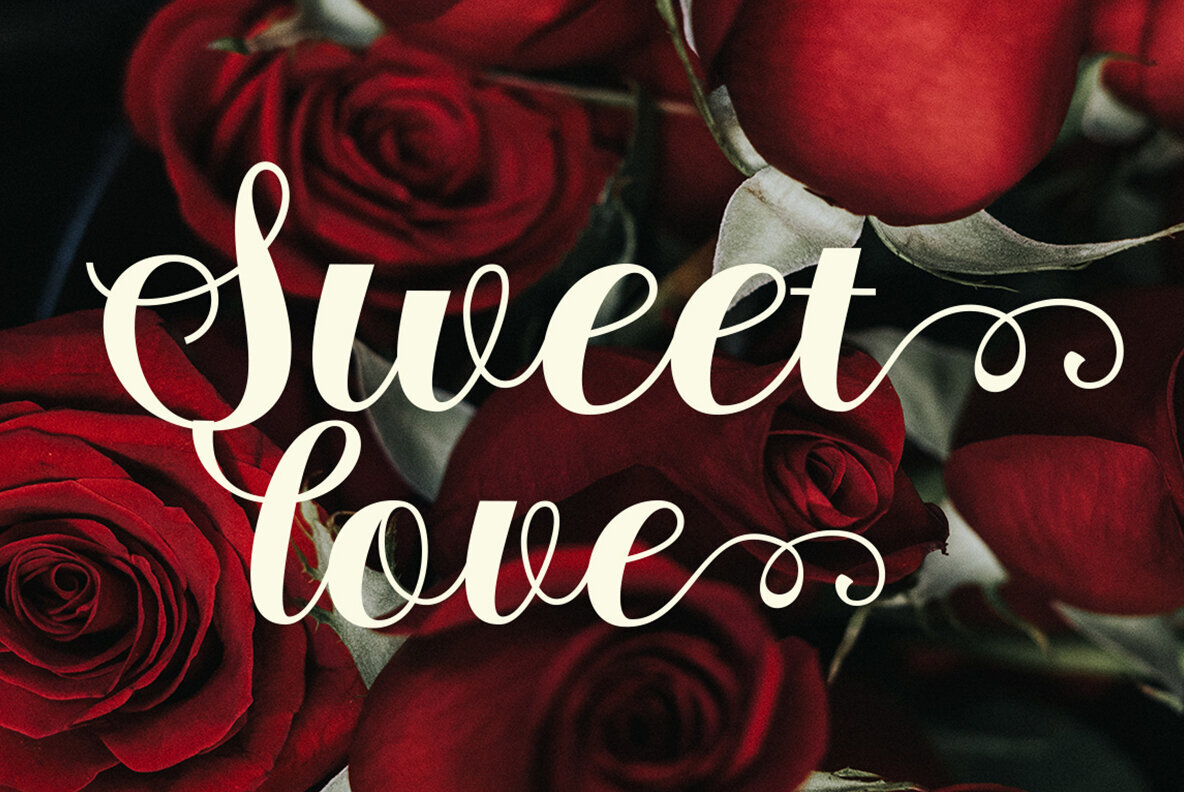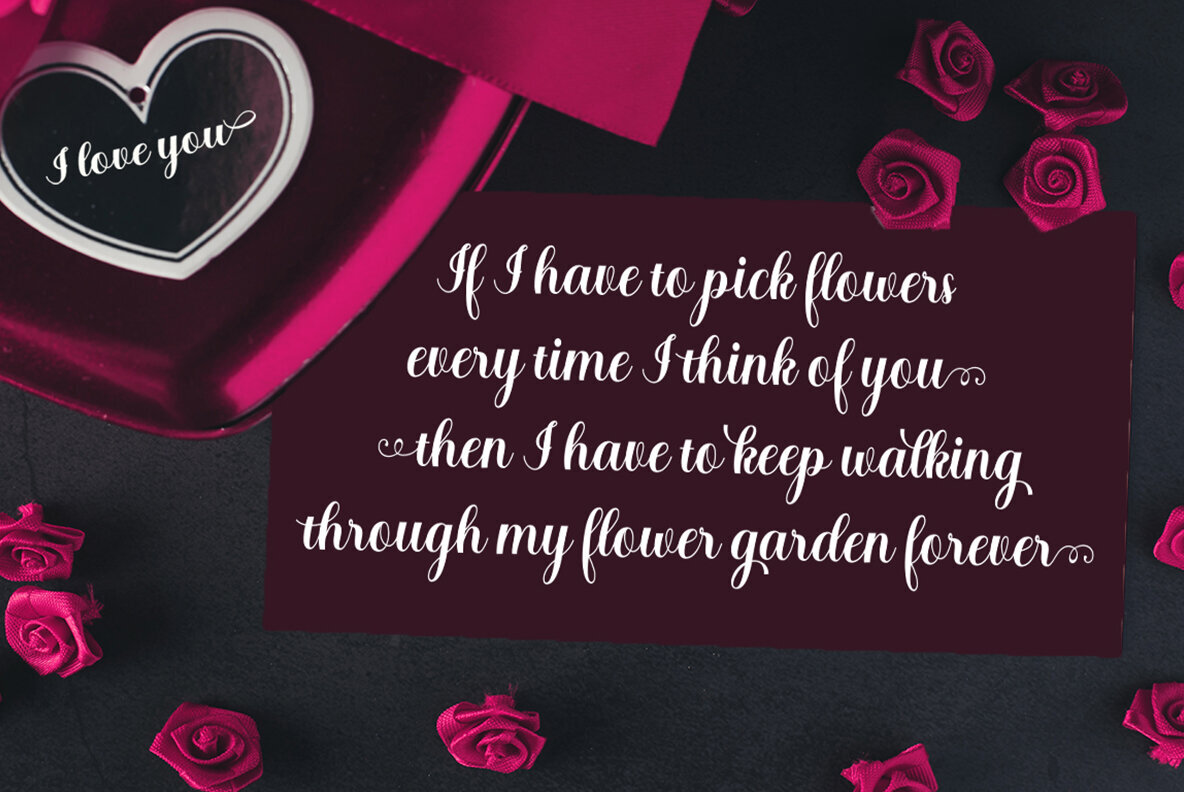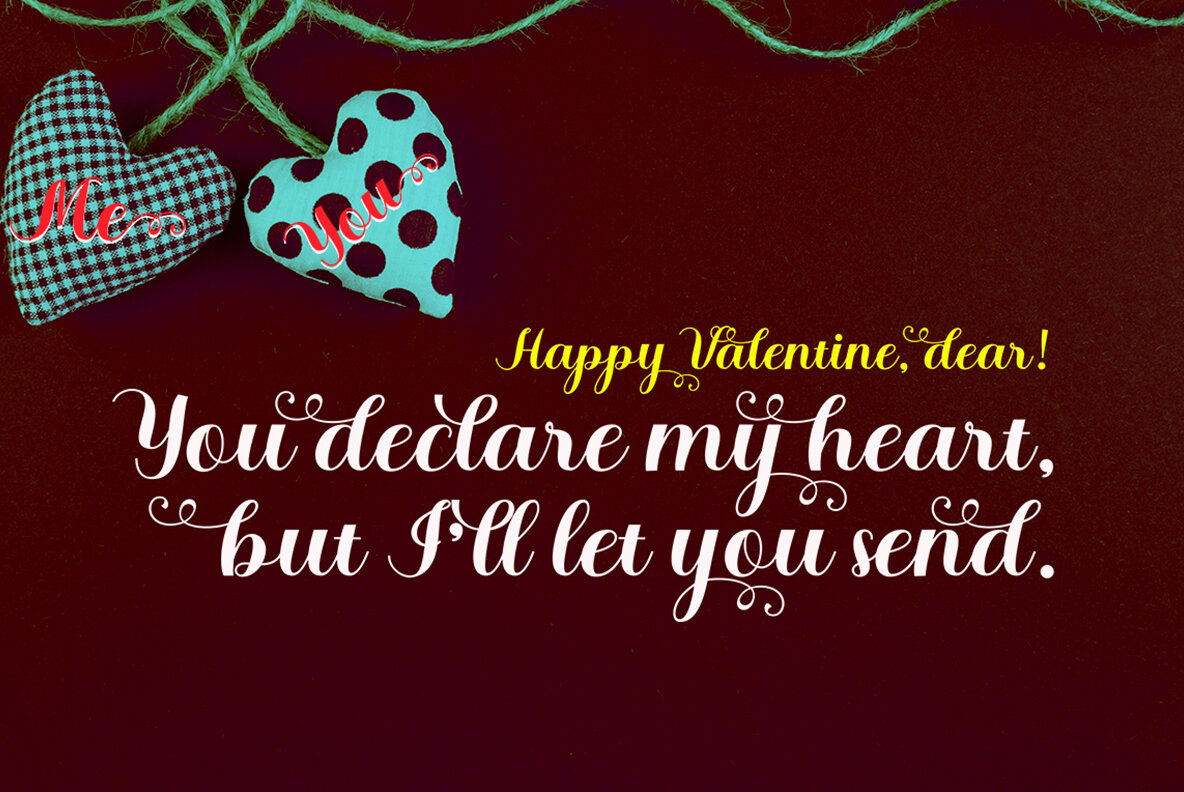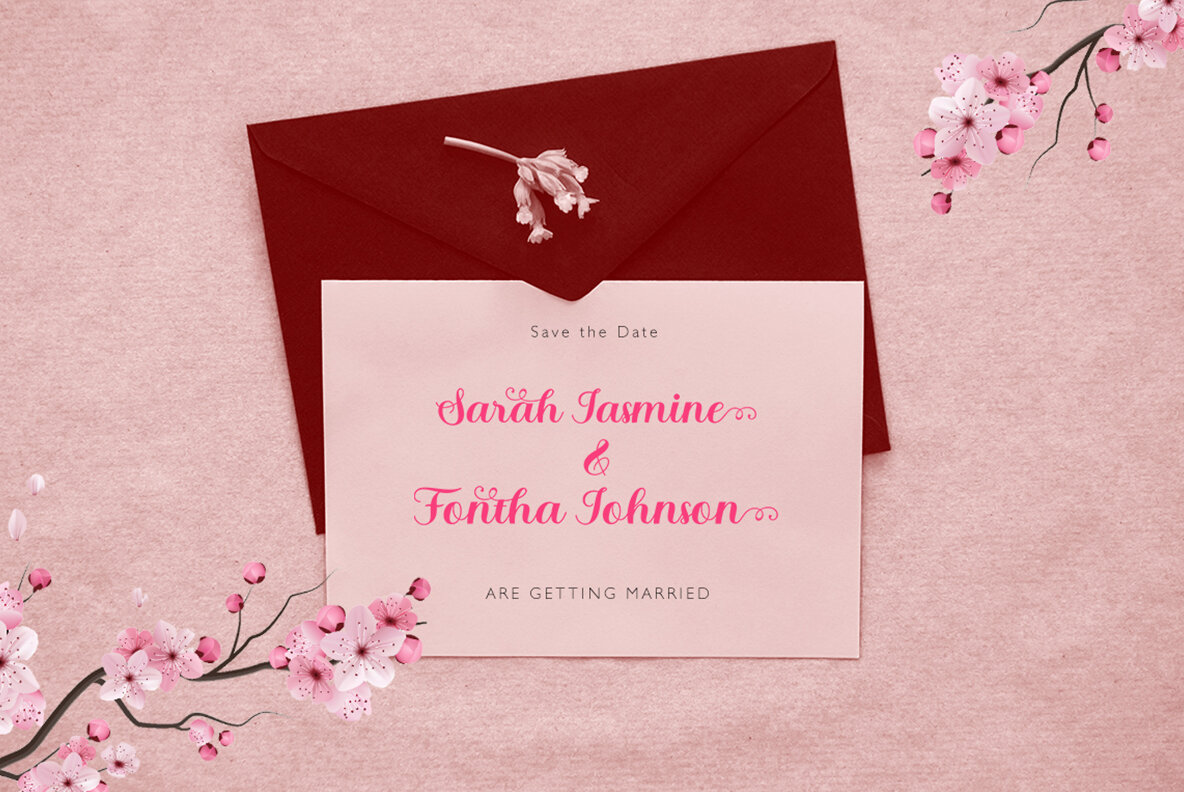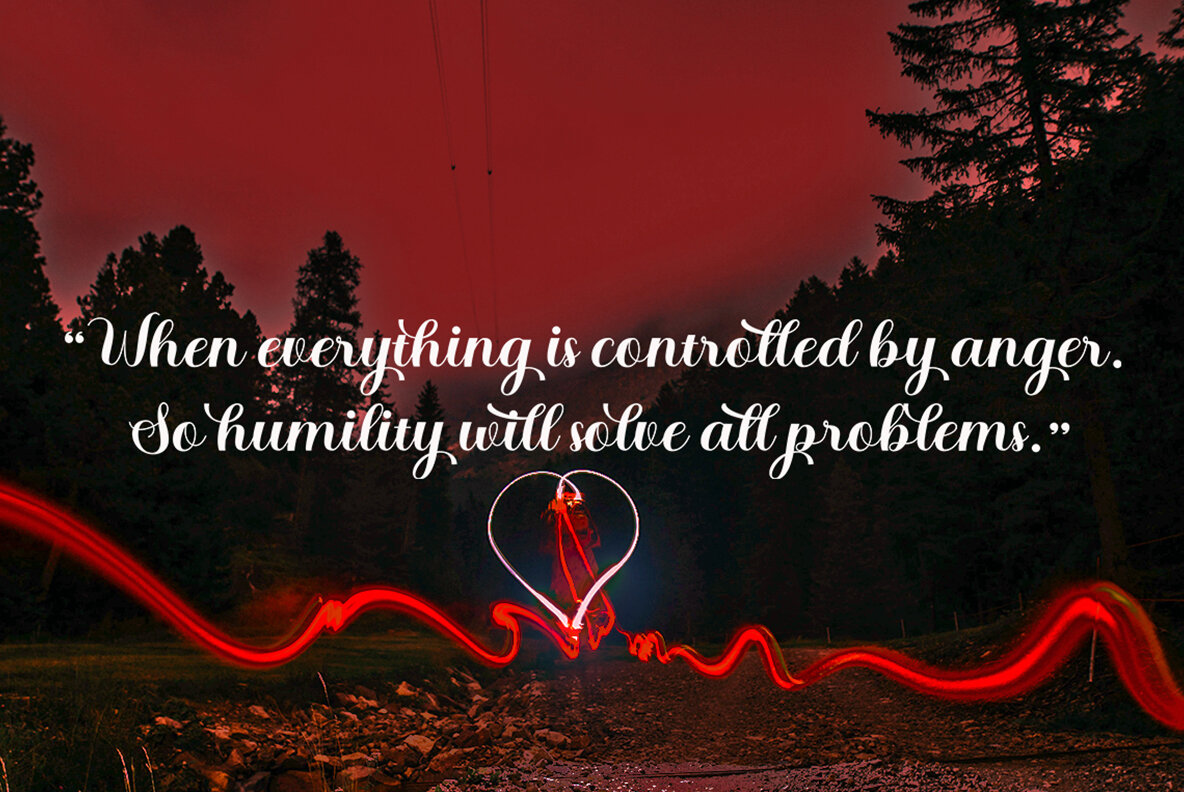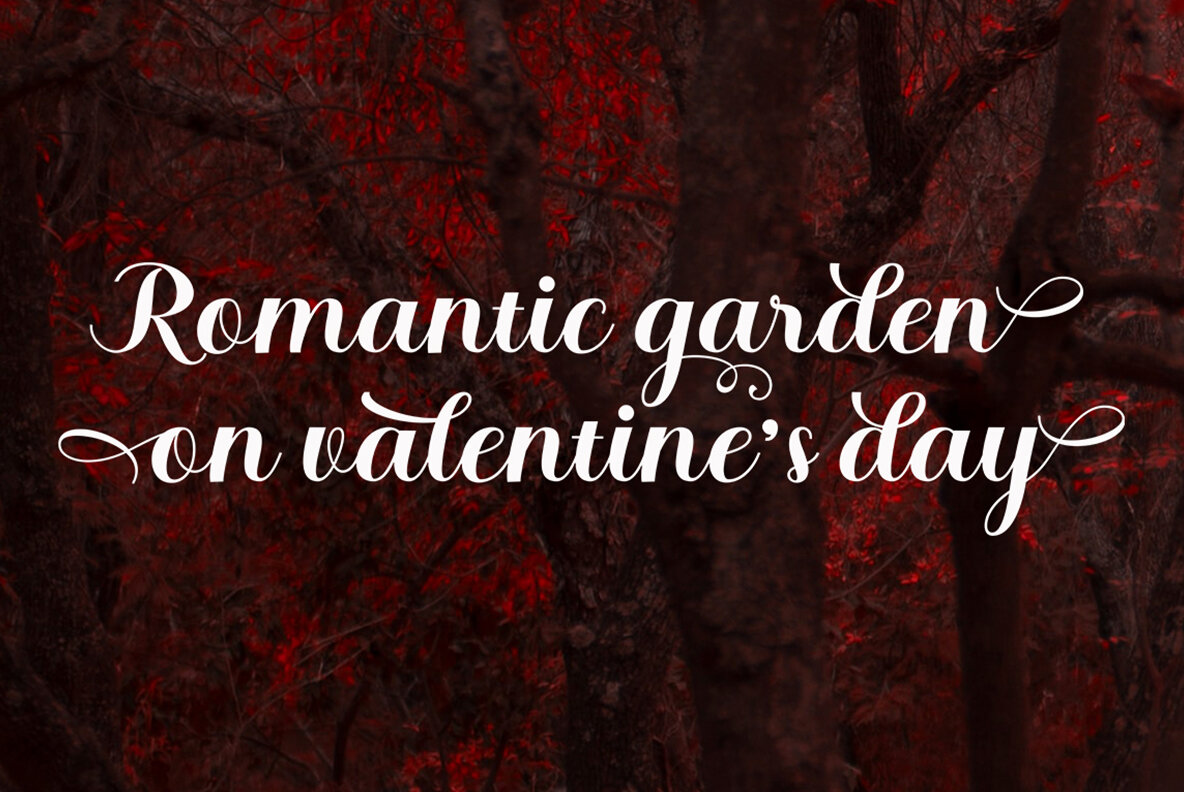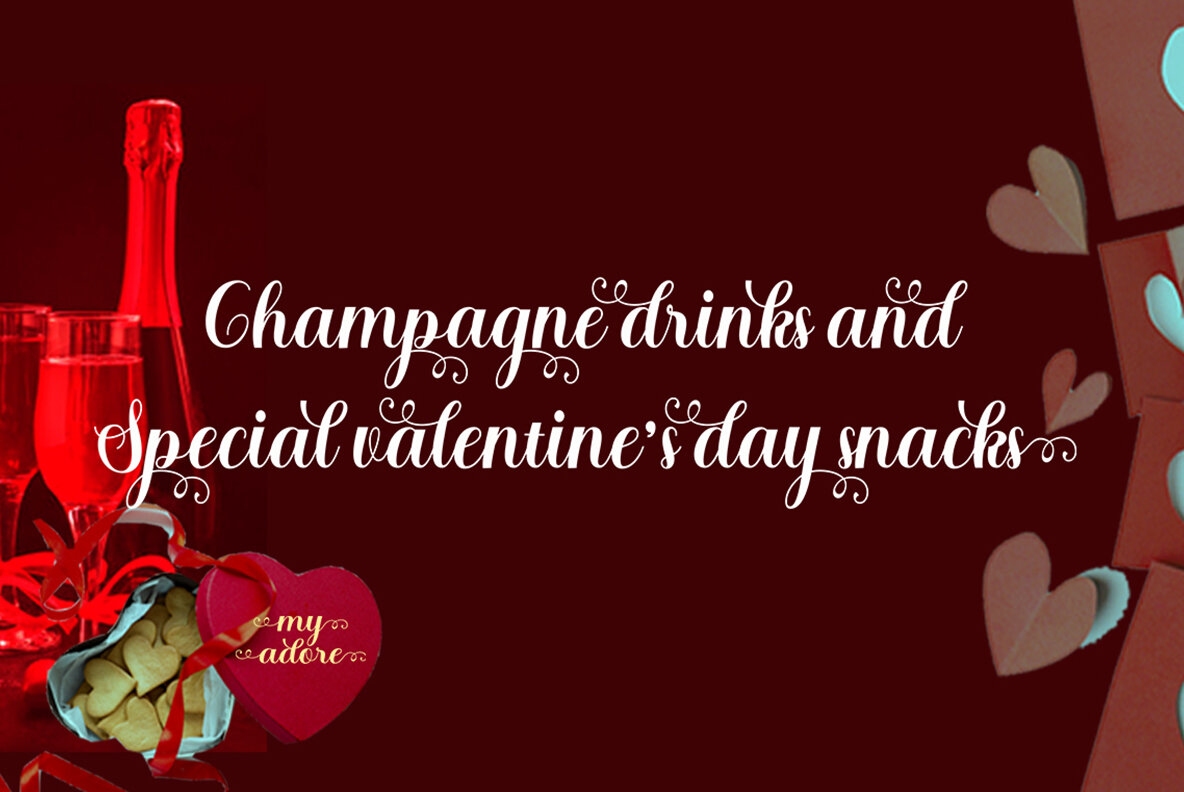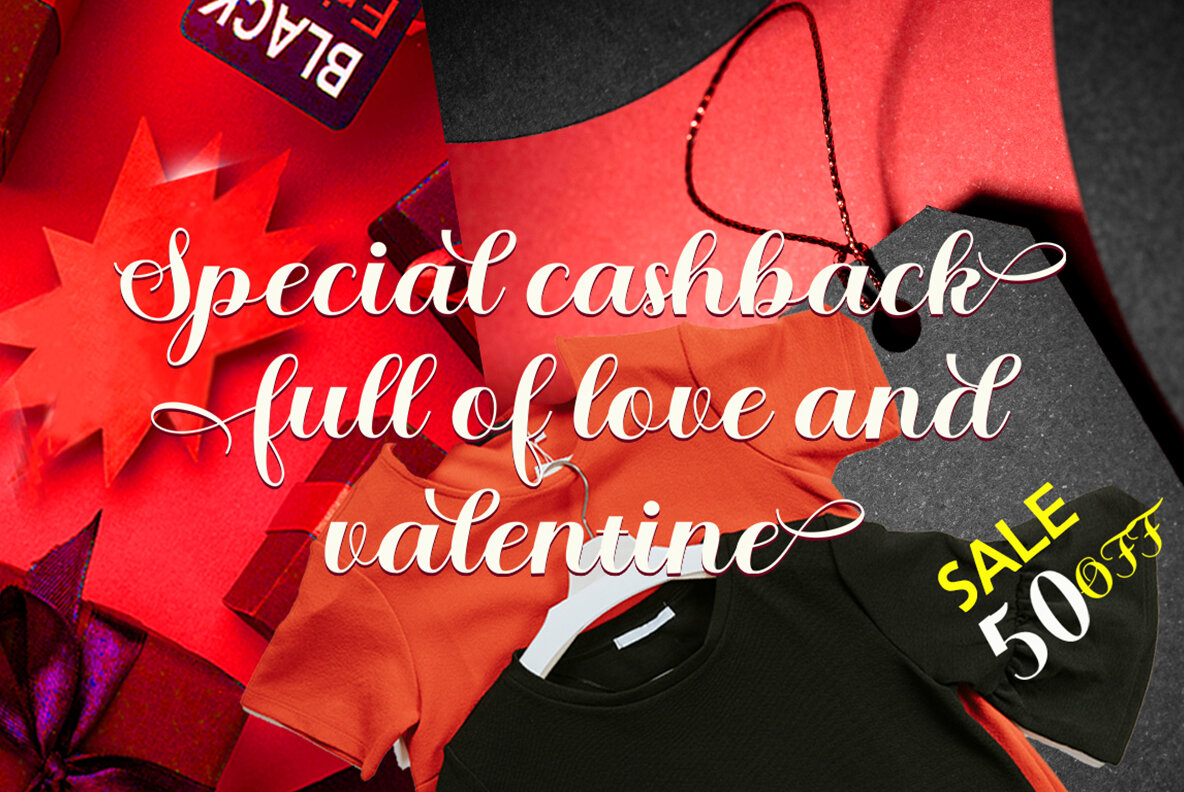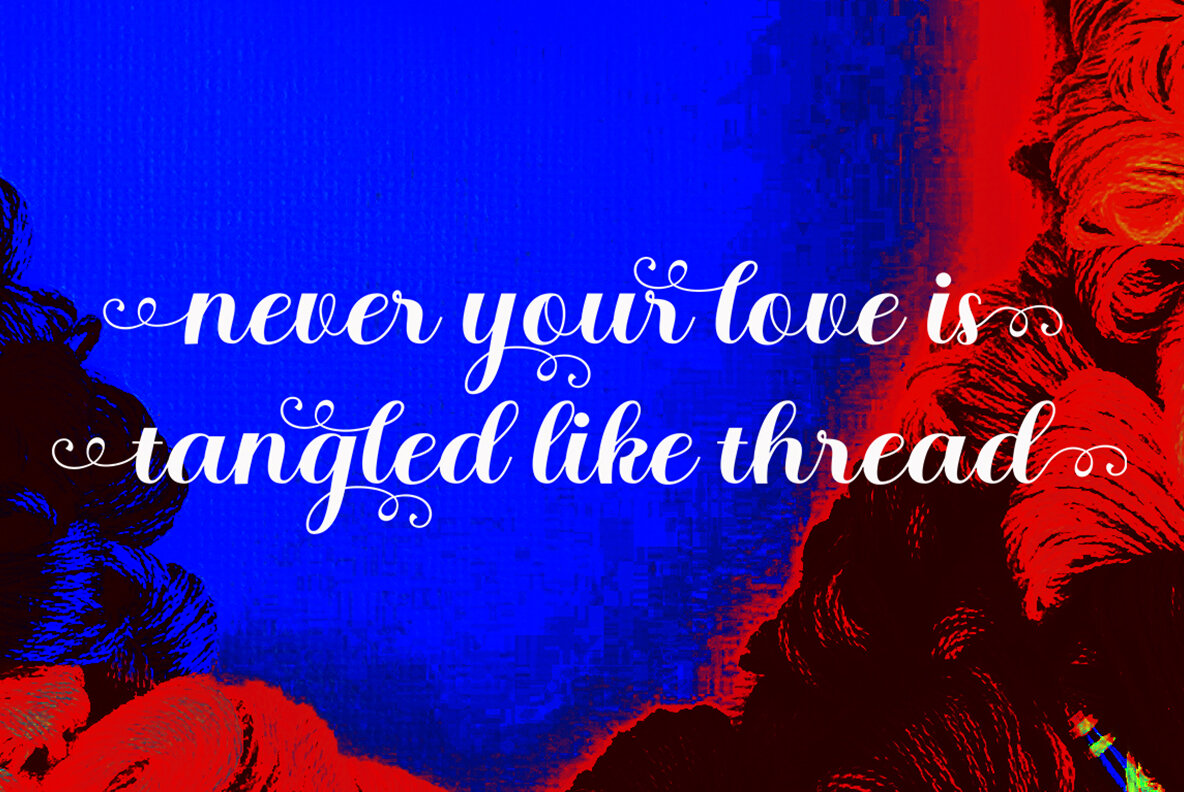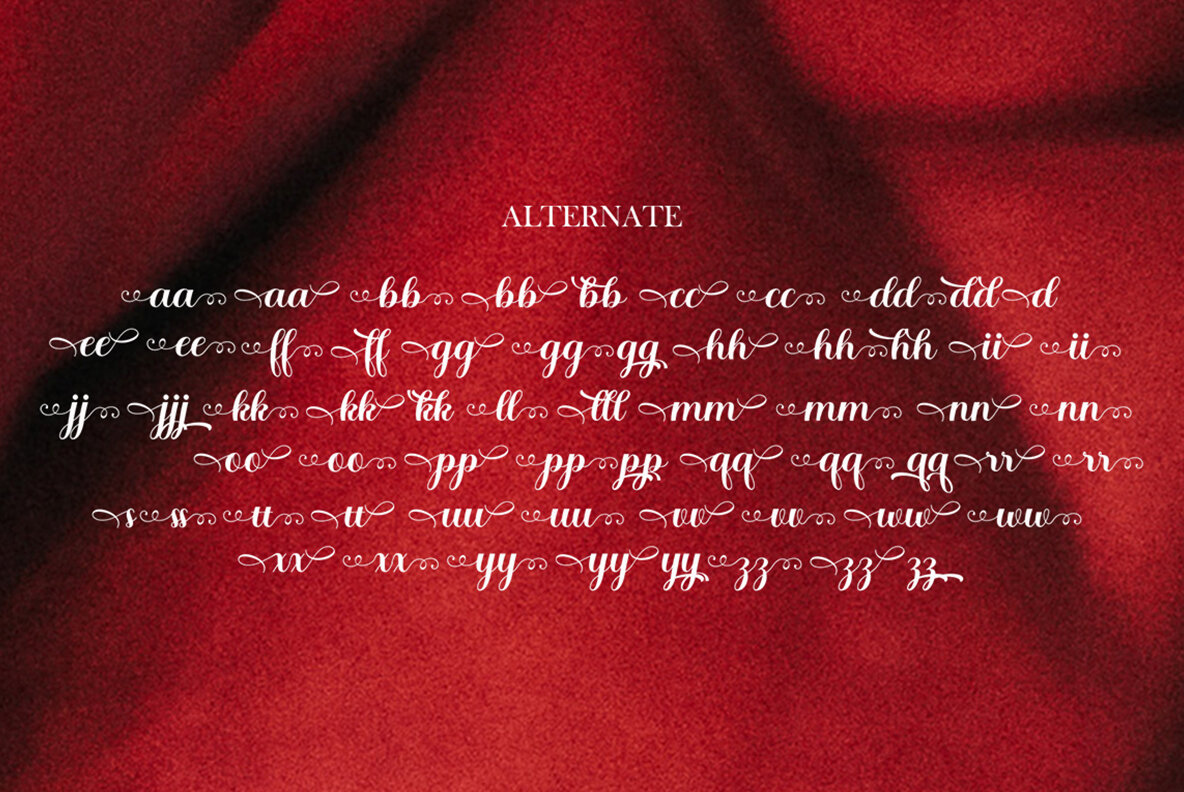
Braylen Font
Braylen Regular
Braylen is a versatile modern script that blends the charm of handwriting with decorative characters. Designed to encapsulate a range of styles from informal and romantic to sassy and sweet, Braylen enables you to rapidly craft beautiful typographic designs. It's ideal for projects such as branding, logos, web design, editorial work, prints, invitations, crafts, and quotes.Braylen: A Modern Handwritten Script with Decorative Flair